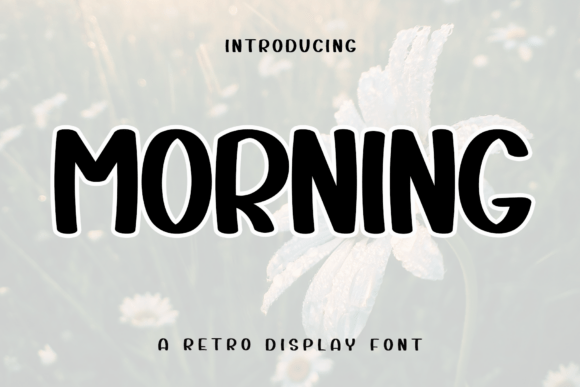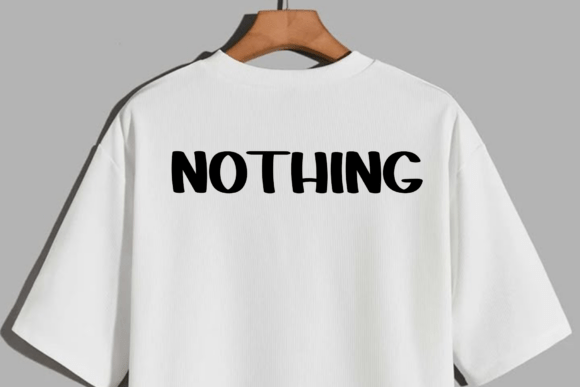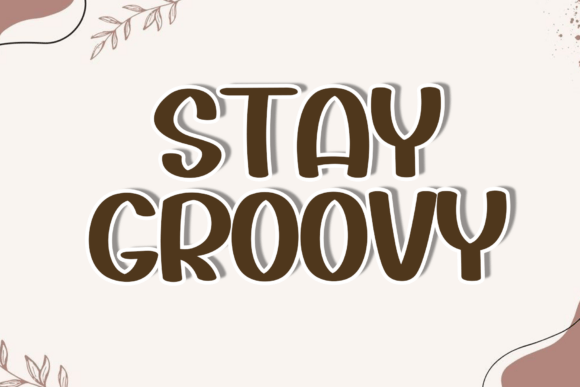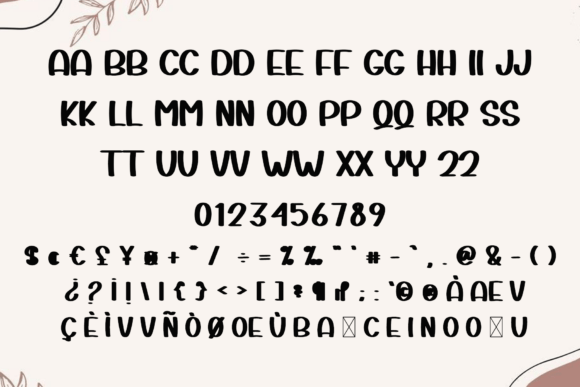
Morning Font: A Cute Retro Display Font for Cricut Crafts!
About the Morning Font
Step up your design game with Morning Font, a font that exudes confidence and style. Morning is a delightful display font brimming with charm and whimsy. Its playful curves and friendly demeanor evoke a sense of camaraderie and joy. Perfect for children’s books, party invitations, or any design project that seeks to radiate warmth and cheerfulness.
Morning Font’s playful character makes it ideal for headlines, short text blocks on posters, or branding for children’s products and playful brands. It works exceptionally well in packaging design where a friendly, approachable aesthetic is desired. However, its low x-height and decorative nature make it unsuitable for body text or UI elements requiring high readability.
Consider pairing Morning Font with a clean sans-serif like Open Sans for body copy, creating a strong contrast between playful display and easily readable text. Alternatively, a classic serif like Garamond could add a touch of sophistication, tempering Morning Font’s inherent whimsy.
The overall personality of Morning Font is cheerful and approachable, conveying a sense of lighthearted fun without being overly childish. This makes it a versatile choice for projects that require a friendly yet sophisticated feel.
Morning Font Usage Examples
Morning Font Example